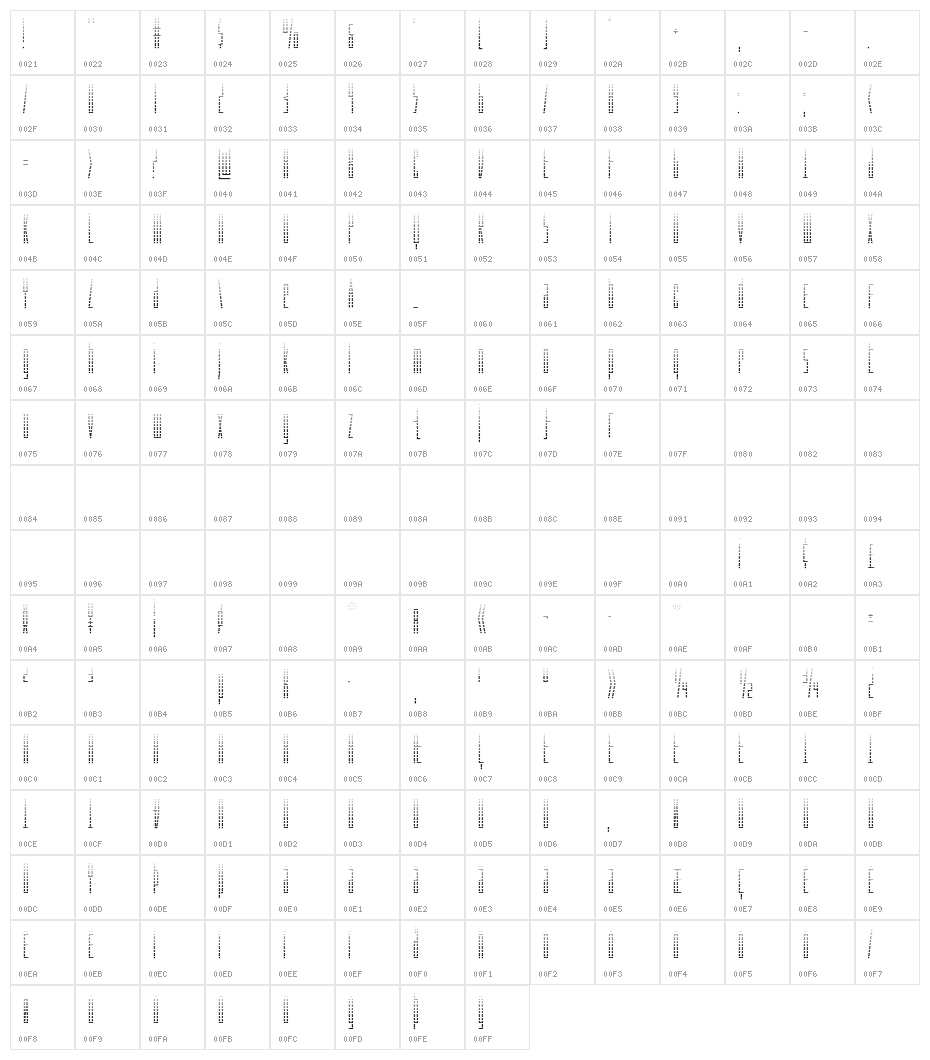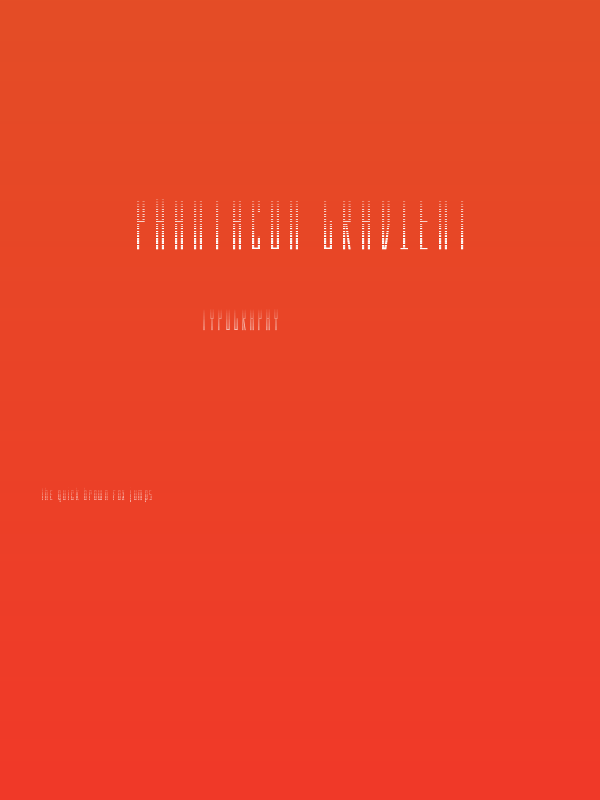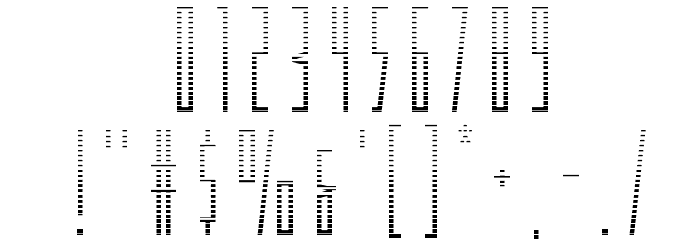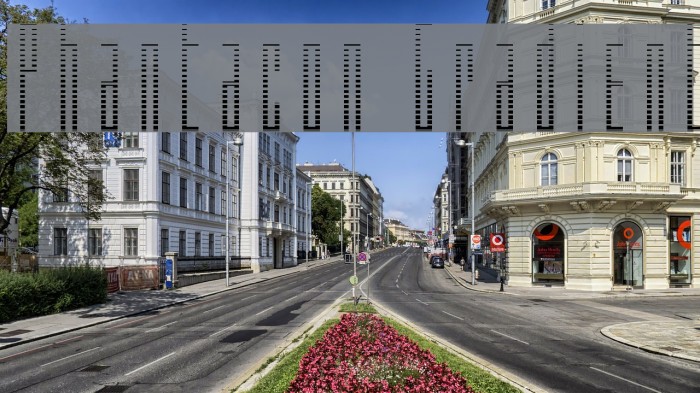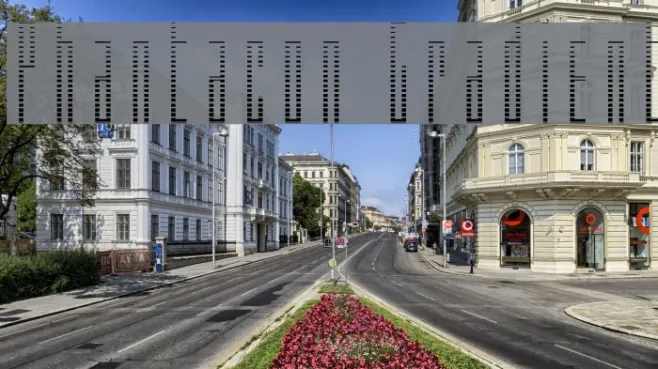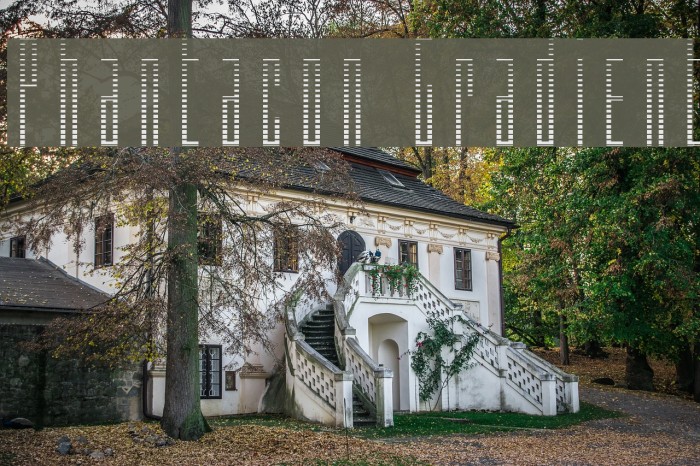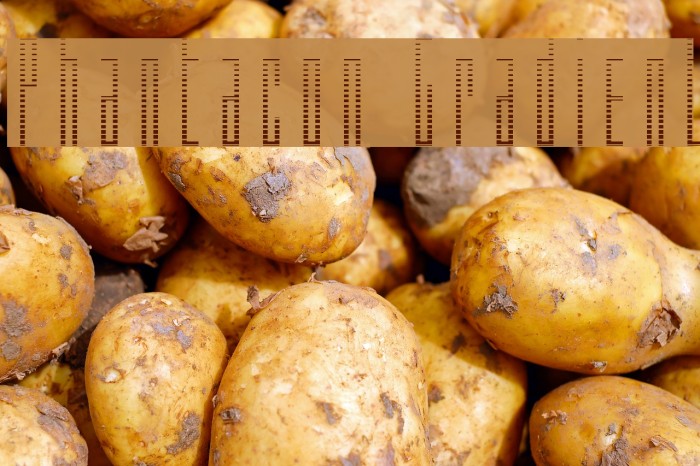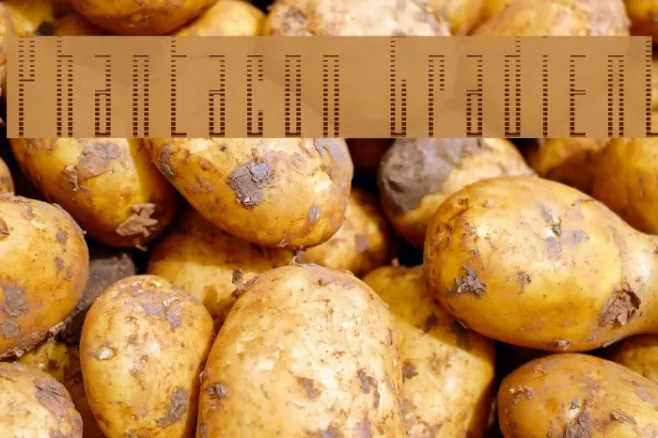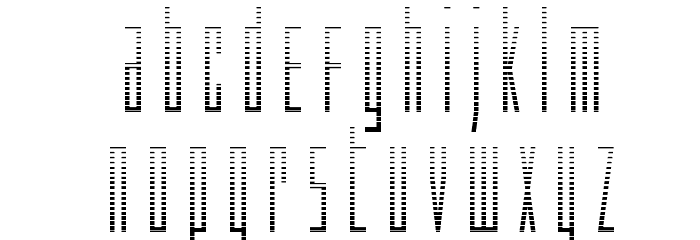
Phantacon Gradient Font
Phantacon Gradient Description
This font features a unique gradient effect within each character, creating a visually striking appearance. The characters are tall and narrow, with a distinct vertical alignment that gives them a modern and futuristic feel. The gradient effect is achieved through a series of horizontal lines that vary in thickness, adding depth and dimension to the letters. This design choice makes the font particularly eye-catching and suitable for creative projects. The uppercase and lowercase letters maintain a consistent style, while the numbers and special characters are designed to complement the overall aesthetic.
| Proposed Projects | Ideal for digital art, posters, album covers, and branding that requires a modern and edgy look. |